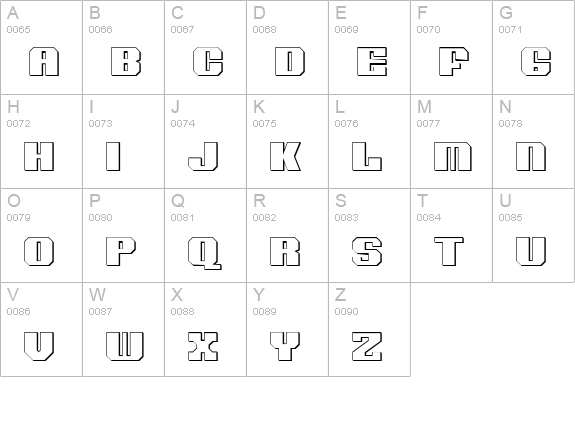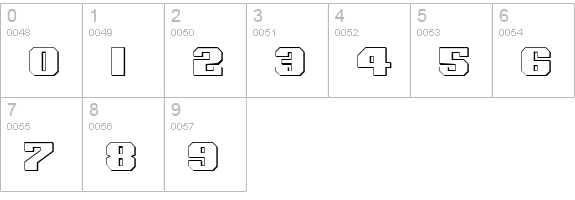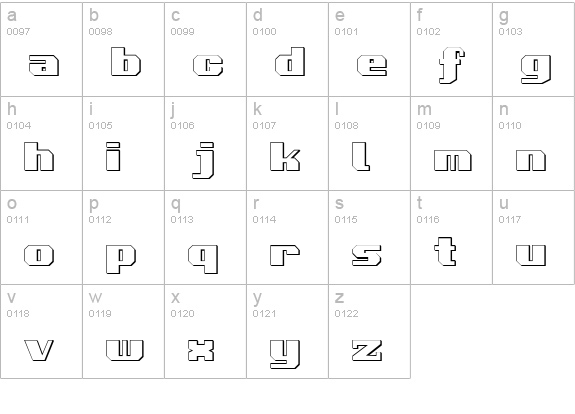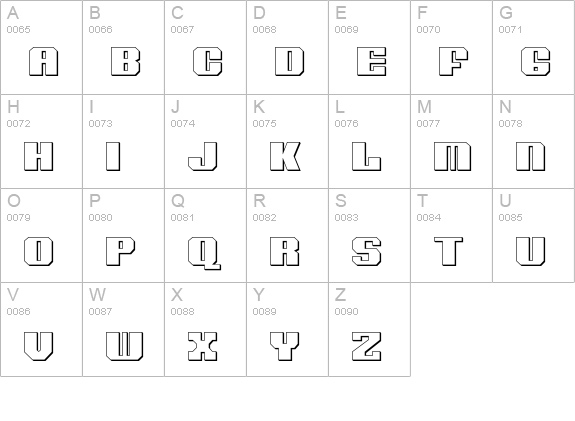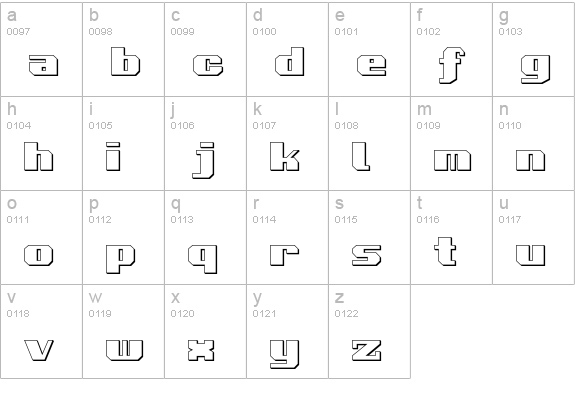
Voortrekker 3D font is a stunning display typeface that exudes a sense of depth and dimensionality. With its intricate 3D design, this font is sure to make your projects stand out and leave a lasting impression. The bold and eye-catching style of Voortrekker is perfect for headlines, posters, logos, and more. What sets Voortrekker 3D font apart is not just its striking appearance, but also the fact that it is available for free download at FontsMarket.com. This means that you can easily incorporate this unique font into your designs without any cost involved. Whether you're a designer looking to add a touch of creativity to your work or a business owner aiming to enhance your branding, Voortrekker 3D font is a versatile and accessible option that will elevate your projects to new heights.